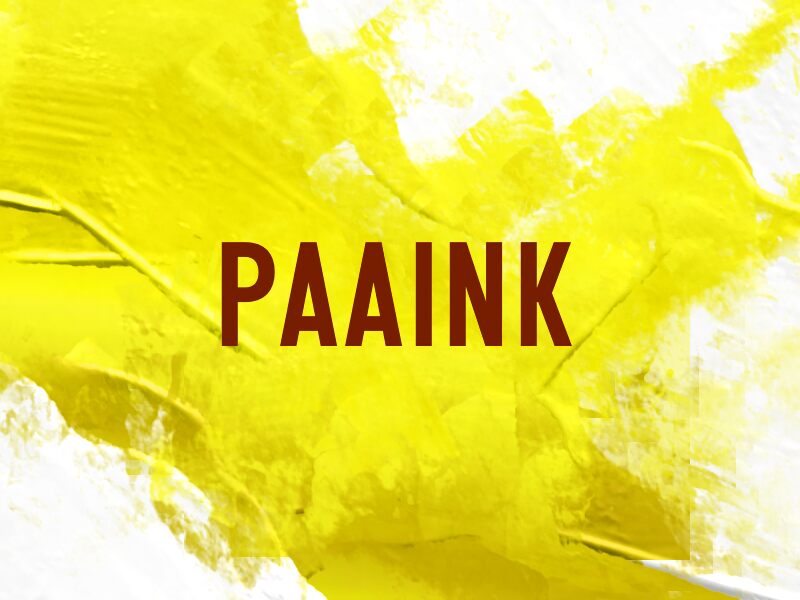
PAAINK
Paaink font by wepfont.com is a free sans serif typeface with a bold, inky presence and surprisingly gentle curves. Its chunky strokes feel almost brush-filled, but the shapes stay clean and modern, creating a strong voice that’s still easy to read. The rounded bowls and tight rhythm give every word a solid, confident thud on the page or screen.
Using Paaink, you get a chunky headline look that shines on posters, bold logos, product packaging, thumbnails, social graphics, and large web banners. This free font thrives at big sizes where its weight and smooth curves can really show. Pair Paaink with a lighter, neutral sans serif for body text to balance its dense, black-ink character and keep layouts feeling fresh and readable.